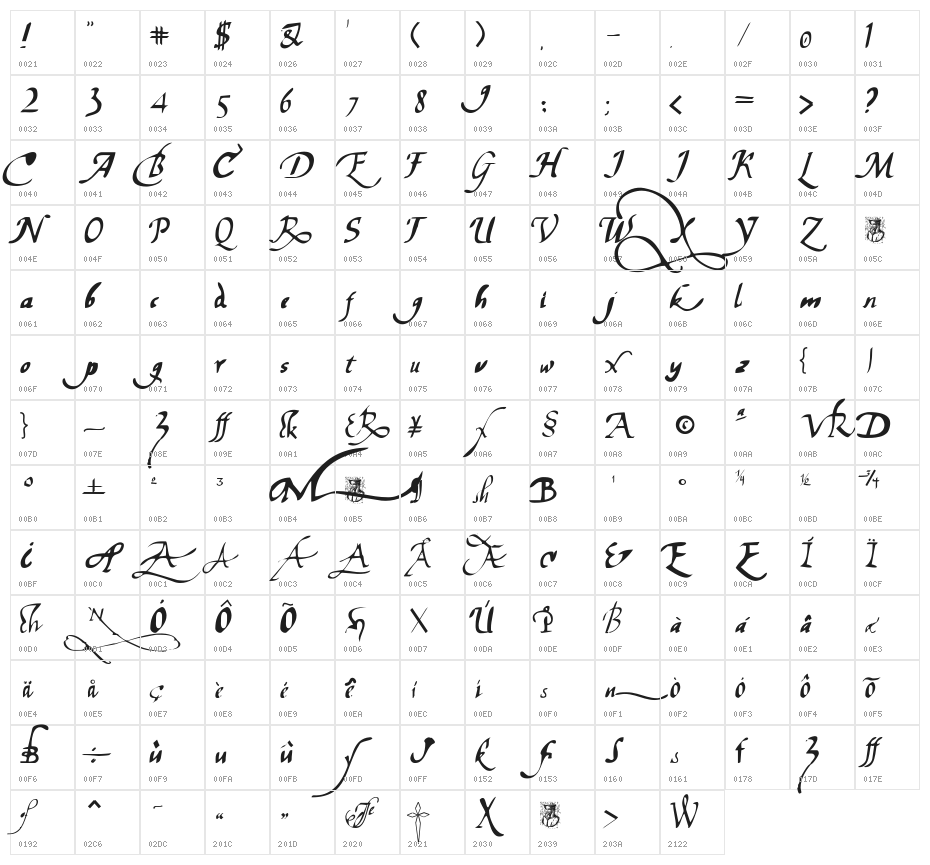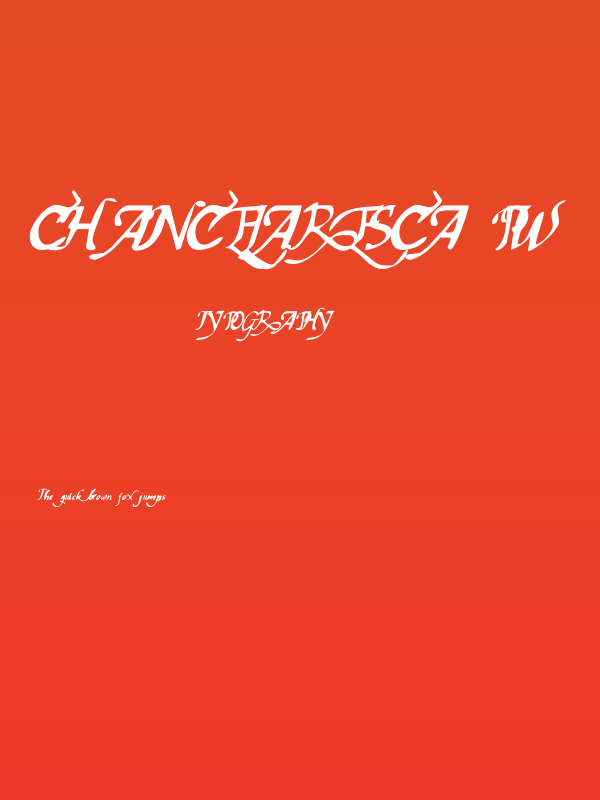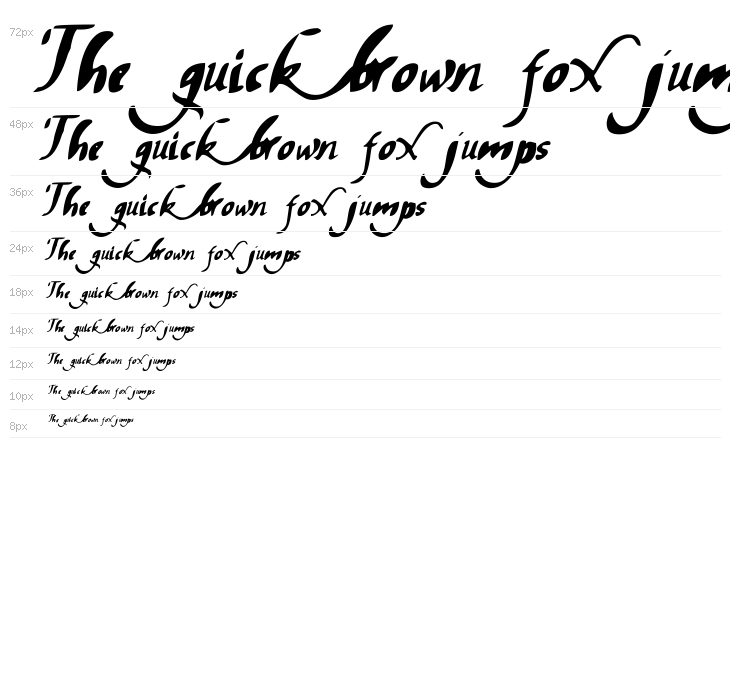
chancelaresca pw Font
chancelaresca pw Description
This font embodies a classic and elegant script style, characterized by its flowing, cursive strokes and intricate detailing. The uppercase letters are ornate, with sweeping lines and flourishes that give a sense of movement and grace. The lowercase letters maintain a consistent fluidity, complementing the uppercase with their rounded forms and smooth connections. Numerals are designed with a similar flair, ensuring they blend seamlessly with the alphabetic characters. The special characters are equally stylized, adding to the overall decorative appeal. This font is ideal for projects that require a touch of sophistication and historical charm, such as invitations, certificates, or branding that seeks to evoke a sense of tradition and refinement.
| Use Case | Headlines, Invitations, Branding |
| Proposed Projects | Ideal for wedding invitations, formal event programs, luxury branding, and historical-themed designs. |